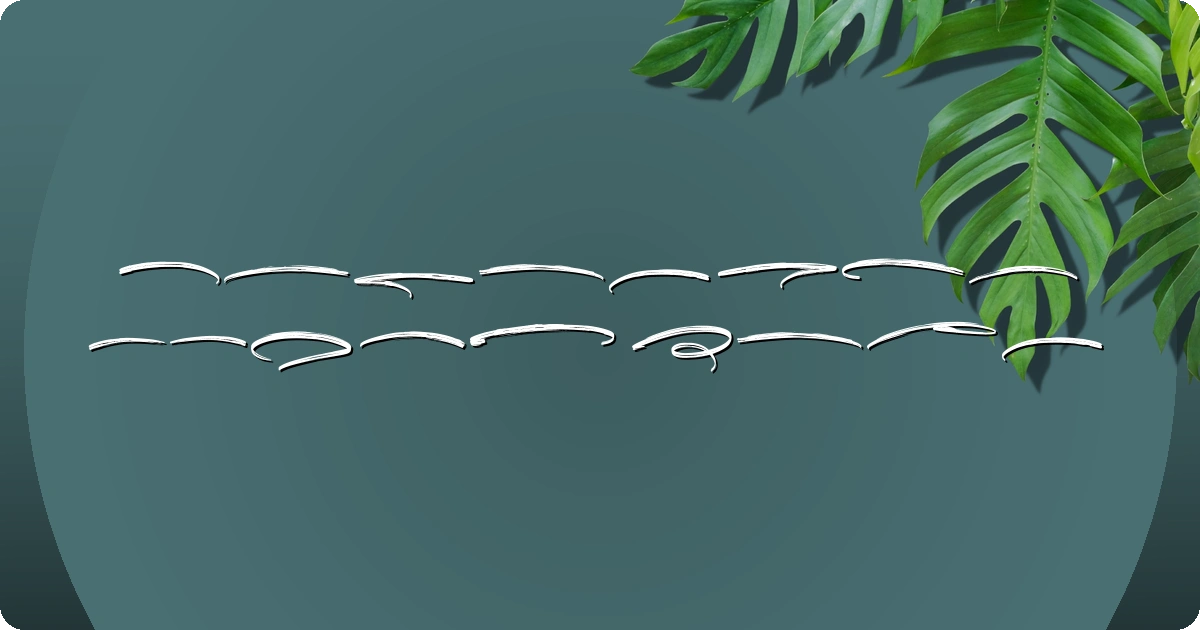
Stephen Type Font is a sleek and strong typeface with all image characters, it makes a solid foundation for unique alternatives. These designs are unique and beautiful.
It has a nice character in its design which creates an amazing pair of it with leafy brush font for the best results. This text style contains a clear and perfect plan that’s effectively visible by its peruses. This font is the perfect choice for all of your designs if you are seeking a modern, stylish font. The generator tool of this family can be used.
Usage of Stephen Type Font in Brands
This typeface is best compared to the other typeface. For thumbnail designs, theme designs, and other design projects, this stunning typeface is often selected by designers.
This font style incorporates typography and is incredible for rich smiling artistry. Make the art more fun since you’ve as of now chosen the correct textual style.
This font does have a clean, natural appearance that makes it perfect for projects that call for a unique feel. It is a fantastic option for projects that require an original and imaginative touch.
Both TTF and OTF formats are available for this font. Many projects can be enhanced with the addition of this decorative typeface. With a splashy design, the typeface is sure to capture the attention of your audience.
| Name | Stephen Type Font |
| Designer | Joanne Hewitt |
What type of Stephen typeface?
Stephen Type typeface is the unique text style for all your fun design it is a script typeface.